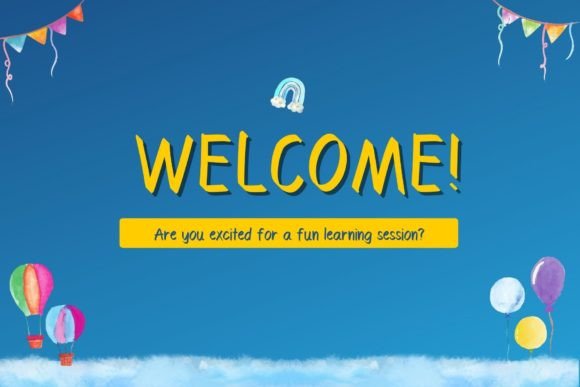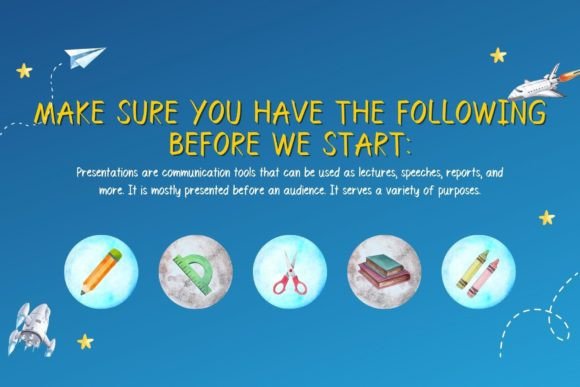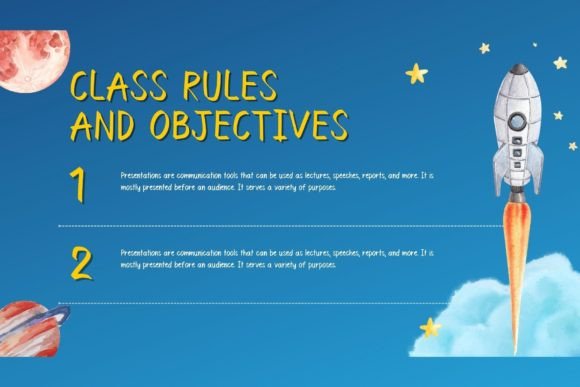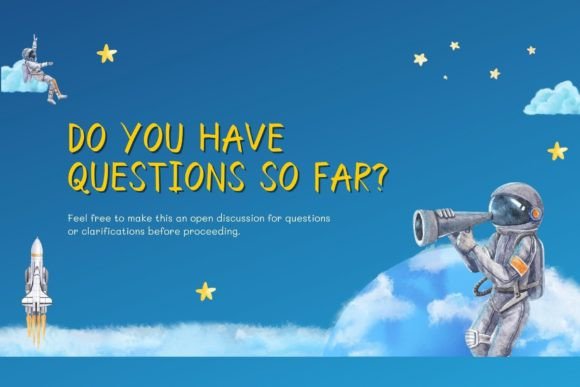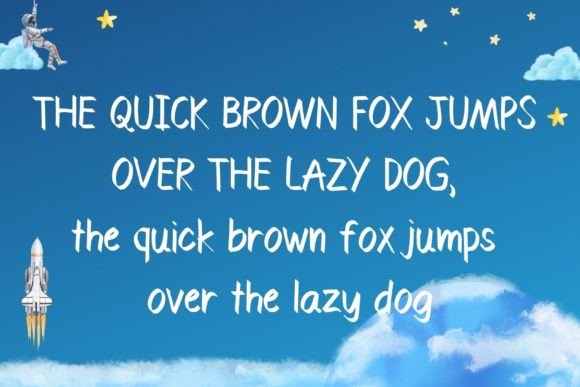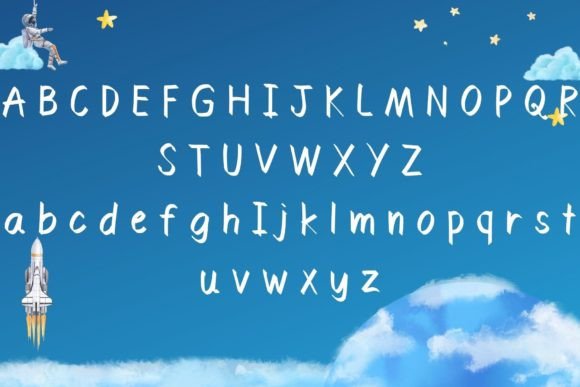
Introduction to Lumpine Font
Lumpine is a cute, handwritten font.
This playful sans-serif will look so good on your invites, cards, logos, and any other fun projects you are working on .